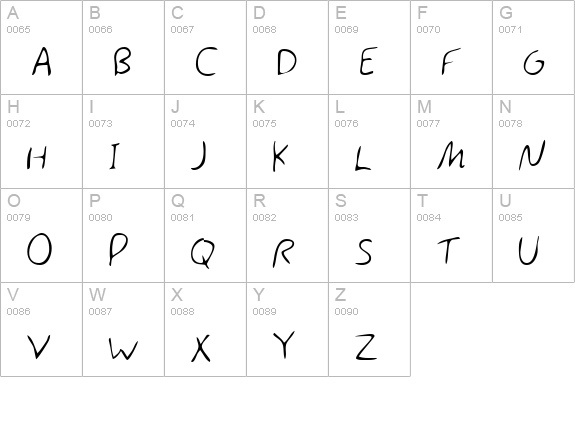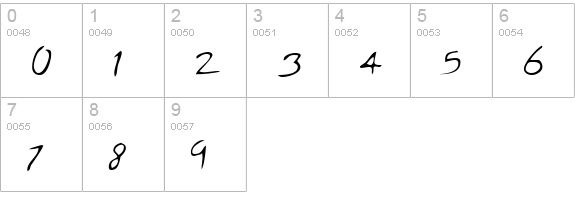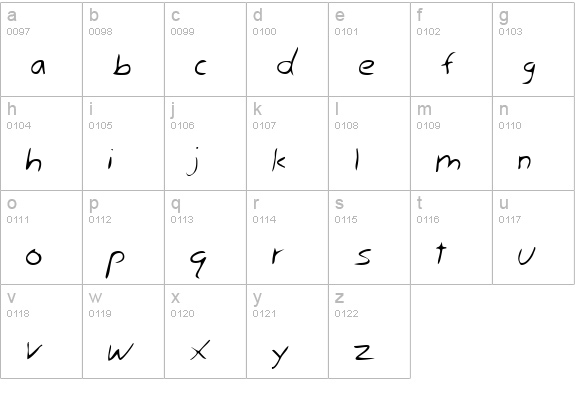
CamdensHand Regular Font Details
CamdensHand Regular is the standard, neutral variant in the CamdensHand typeface family \xE2\x80\x94 well suited to general body text, paragraphs, and standard typographic work.
CamdensHand Regular font is a charming and versatile typeface that exudes a sense of elegance and creativity. With its flowing and graceful letterforms, this font is perfect for adding a touch of sophistication to any design project. Whether you're creating invitations, branding materials, or social media graphics, CamdensHand Regular will make your text stand out with its unique style. The best part about CamdensHand Regular font is that it is completely free to download at FontsMarket.com. You can easily access this beautiful font and incorporate it into your projects without any cost. Don't miss out on the opportunity to enhance your designs with the beauty and elegance of CamdensHand Regular font. Download it today and elevate your creative work to the next level.